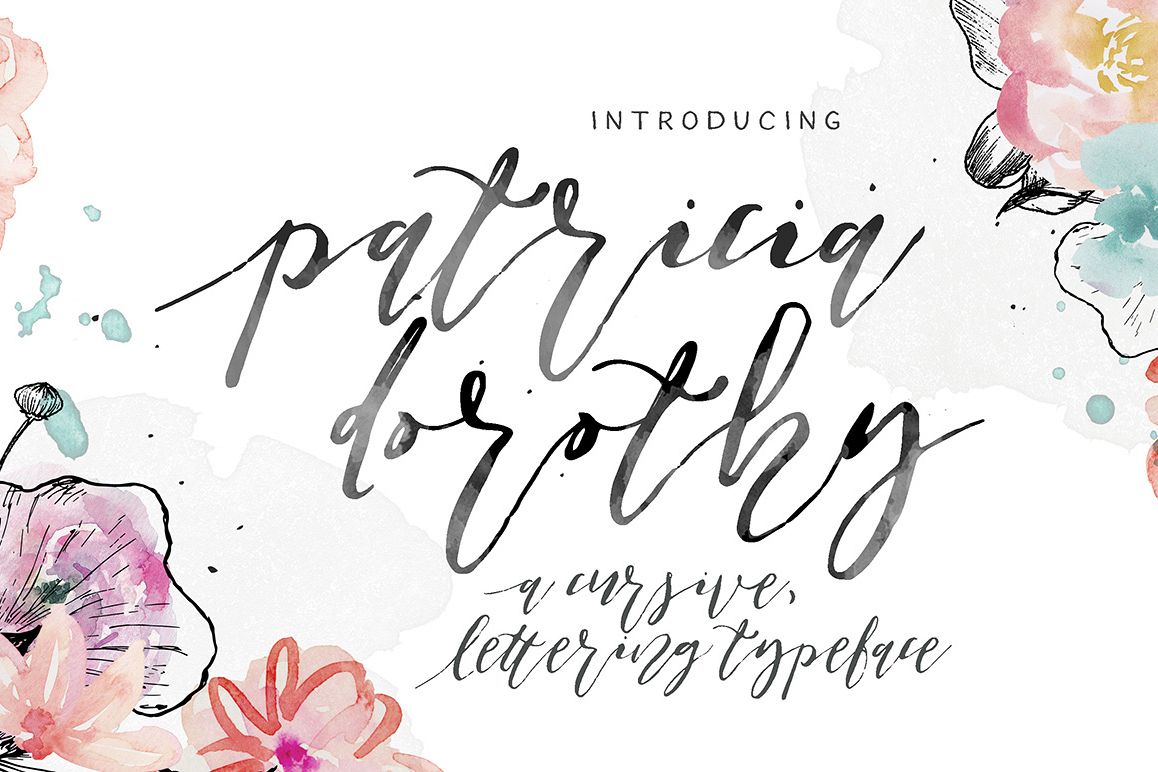
Patricia Dorothy
Patricia Dorothy.
Patricia Dorothy is a cursive, hand lettered typeface. Created manually using brush pen, Patricia Dorothy can be used for various branding and design work: wedding cards and invites, greeting card title, signature for design work, badge and sticker, logo and return address and so forth, you decide!
Patricia Dorothy comes with accented glyphs. Also, it also has unique ligatures where each is created differently from the normal alphabet. The result is anything you create with Patricia Dorothy will look more natural and less like font! Mix the uppercase and the lowercase to get your best result.
Patricia Dorothy Features:
- Stylish Swashes
- Natural Brush Stroke
- Hand Drawn Font
- Unique Ligatures
- Accented Glyphs